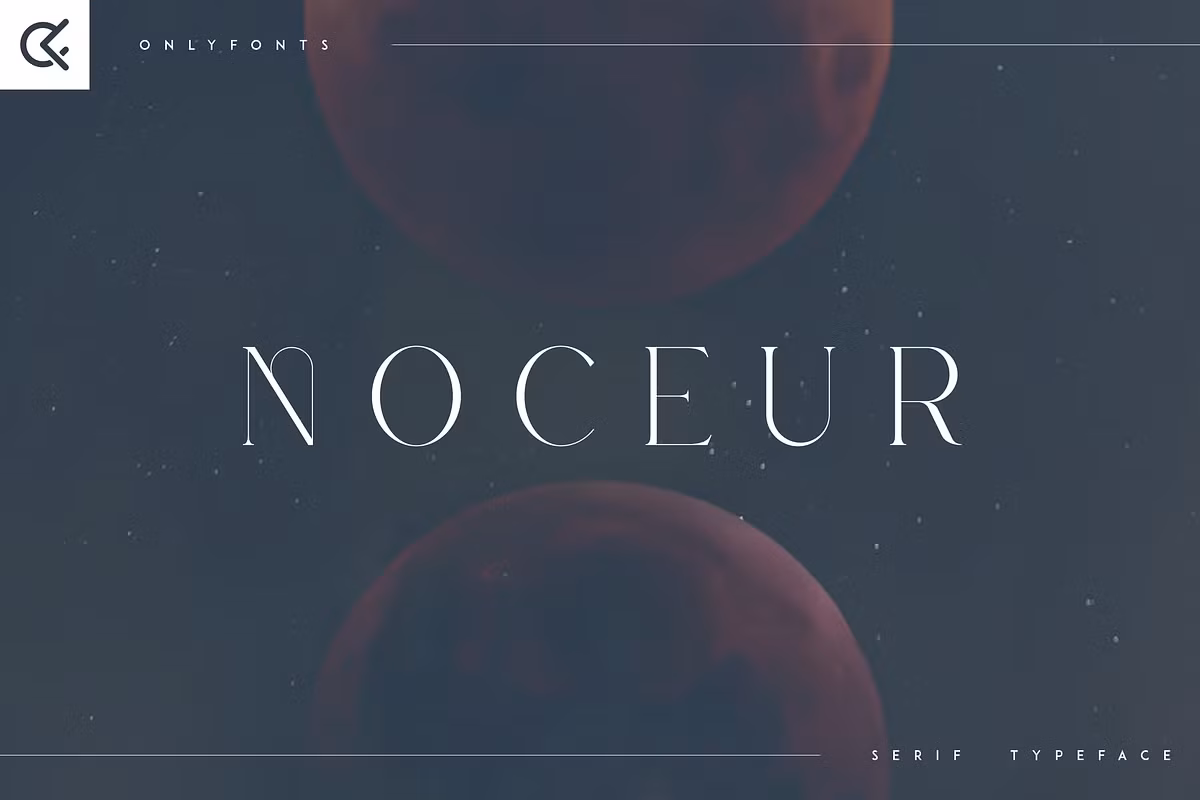
Please note, you must purchase this font for commercial use. However, you can easily download Noceur - Elegant Serif Typeface Free Download for personal use and testing purposes. Noceur - Elegant Serif Typeface is a refined and sophisticated font designed to elevate your designs with its timeless elegance. Perfect for luxury branding, editorial layouts, invitations, and high-end fashion, this serif typeface features sharp, clean lines and carefully crafted letterforms. Noceur - Elegant Serif Typeface Free Download is ideal for projects that require a classic yet modern look, offering both readability and style. Whether you’re working on a premium logo, a magazine spread, or a luxurious product label, this font will add a touch of grace and professionalism to your work. Download Noceur - Elegant Serif Typeface Free Download today and explore its full potential before committing to a commercial license.